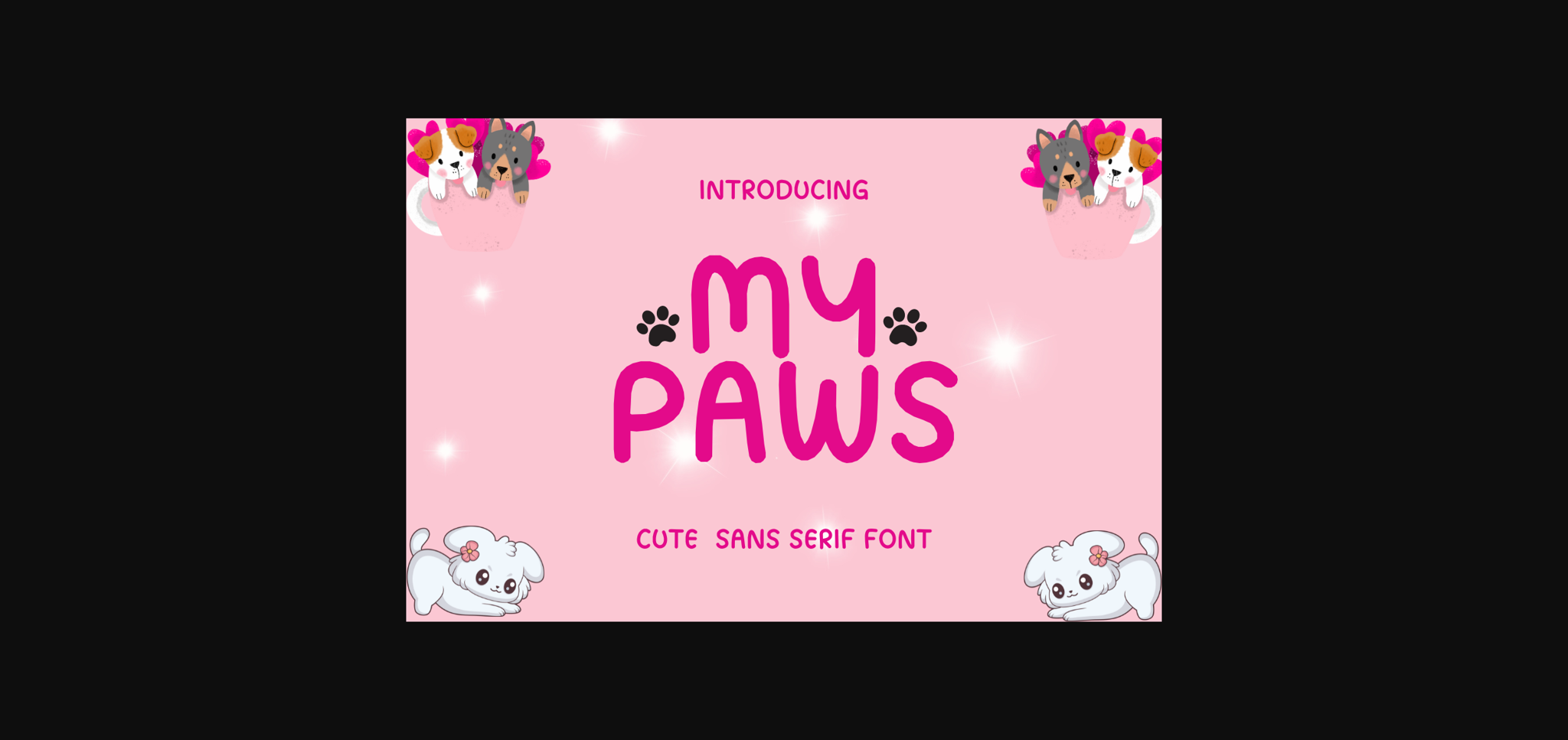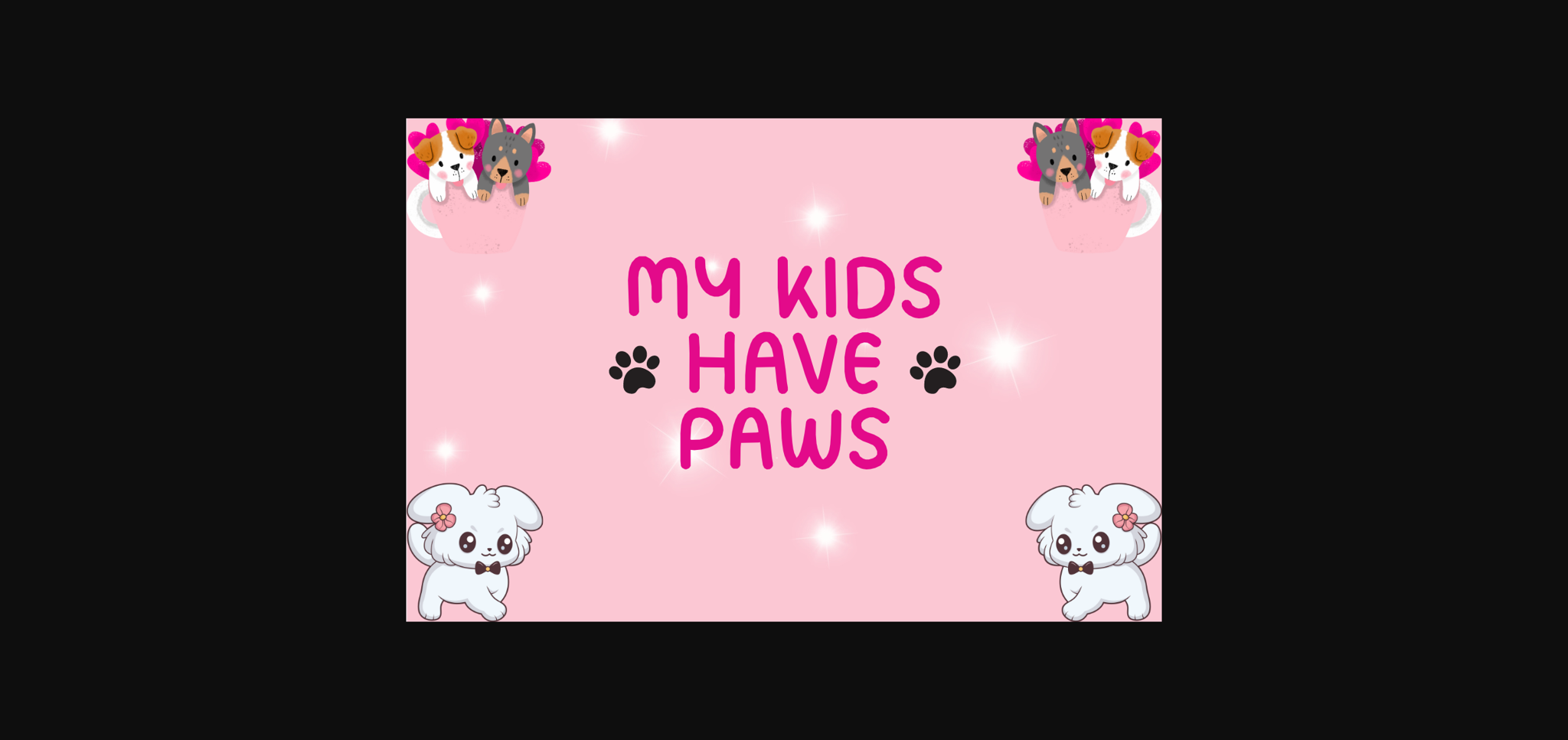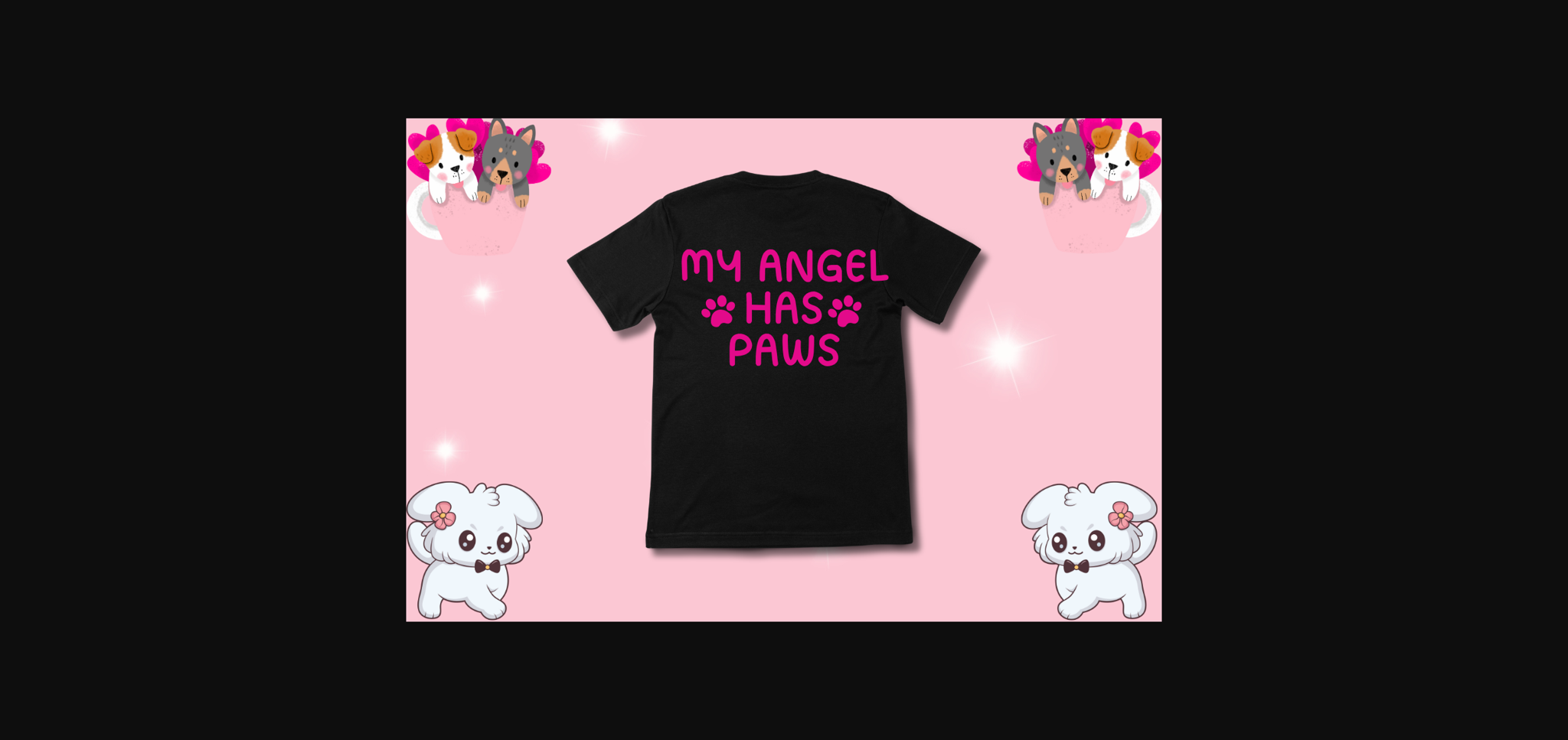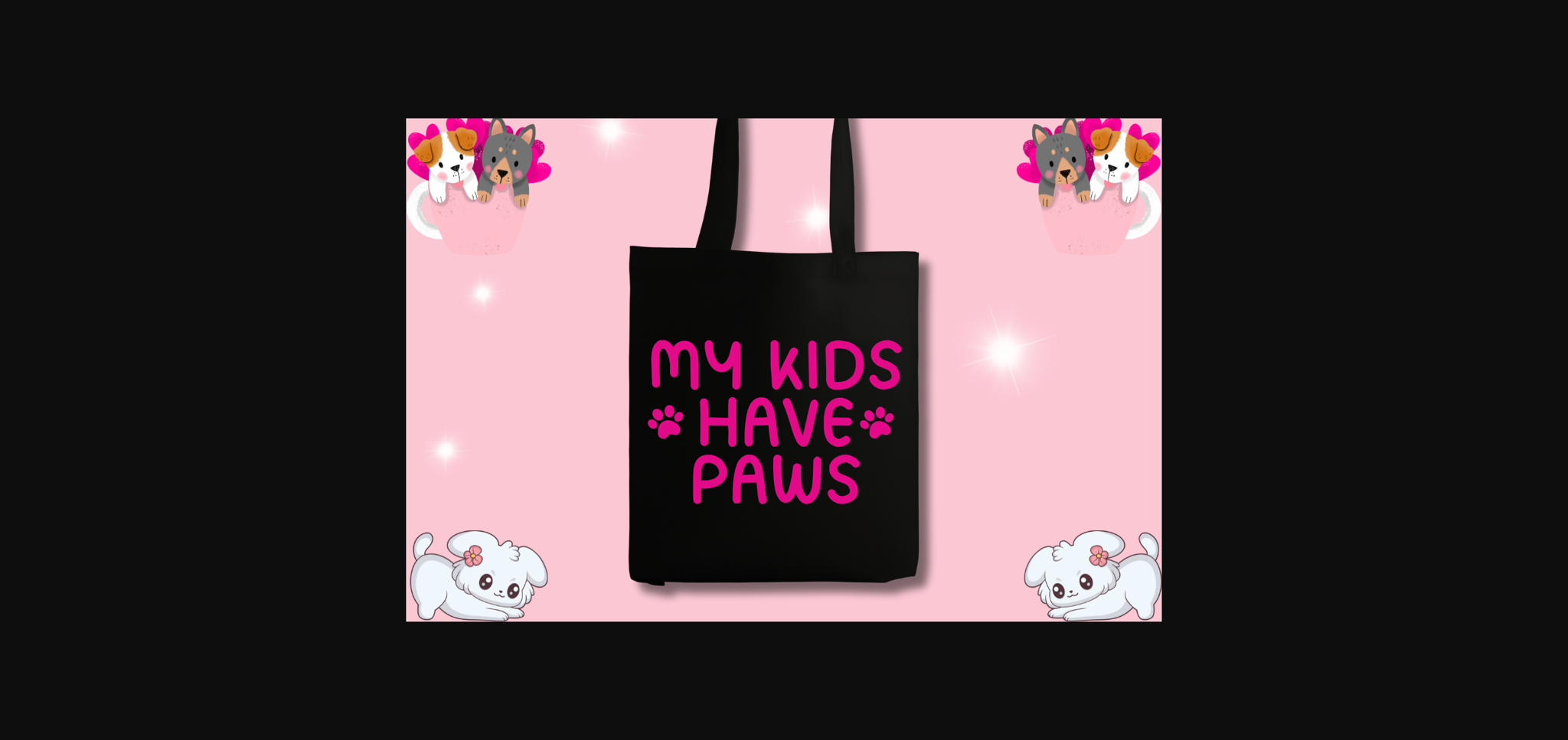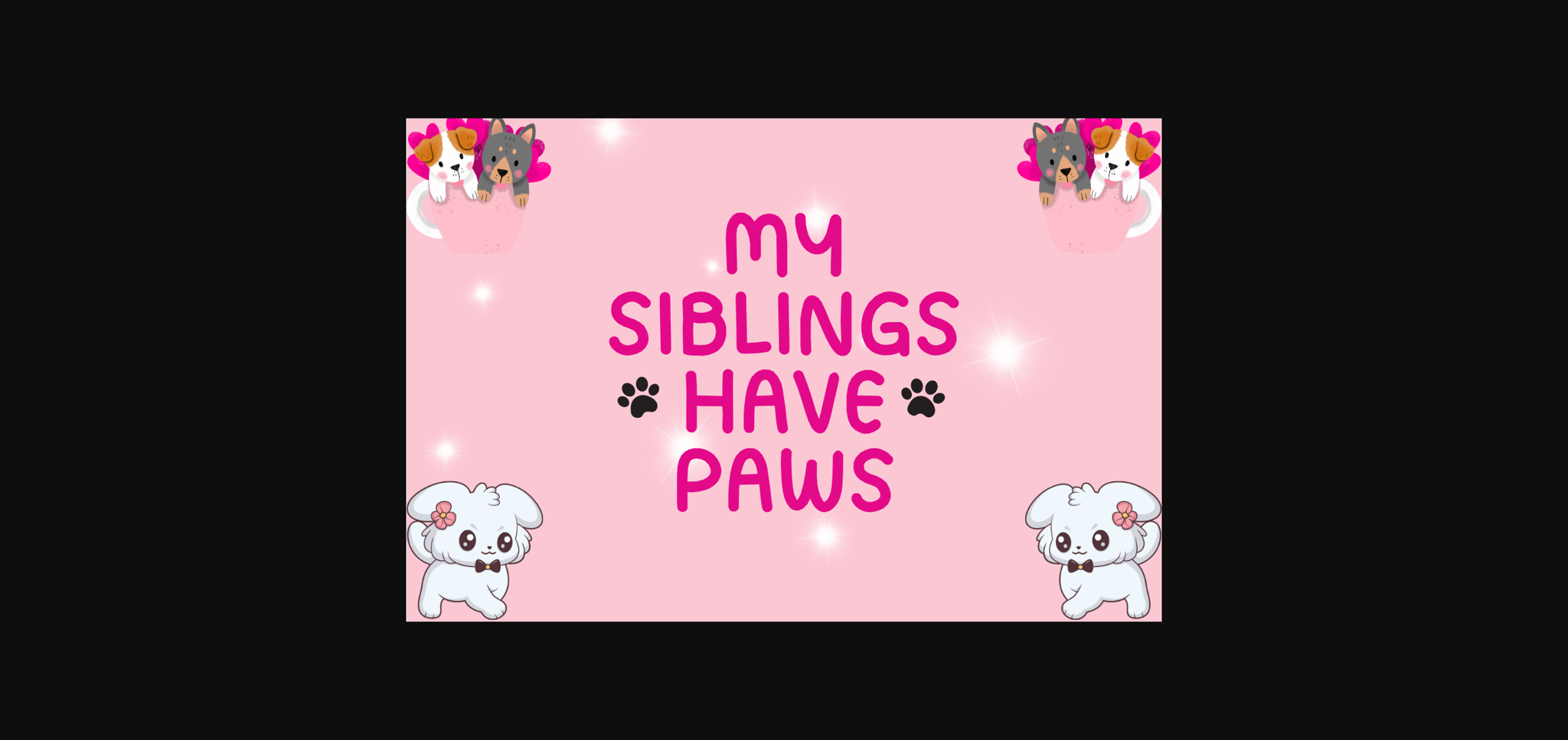
My Paws Font
About My Paws Font
My Paws is a cute and adorable sans serif font. Perfect for social media, posters, stickers, notebooks and so much more.